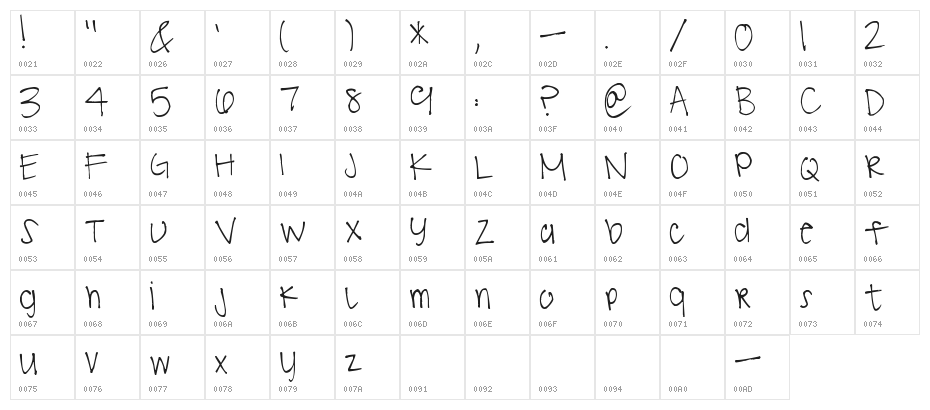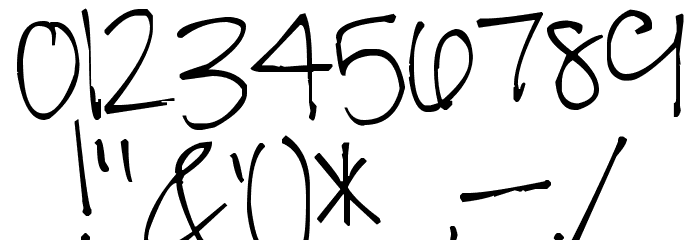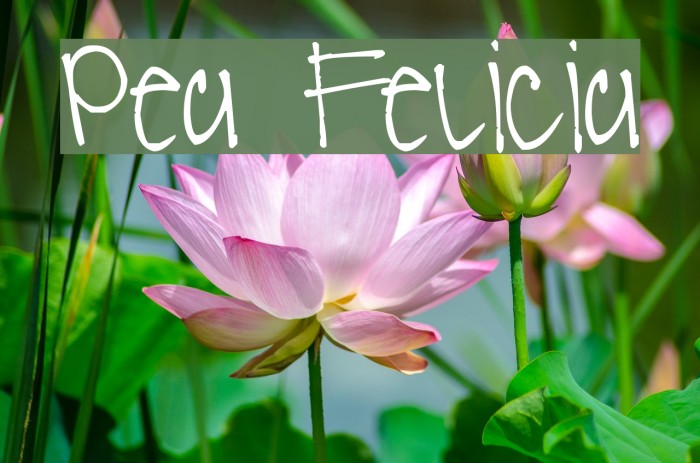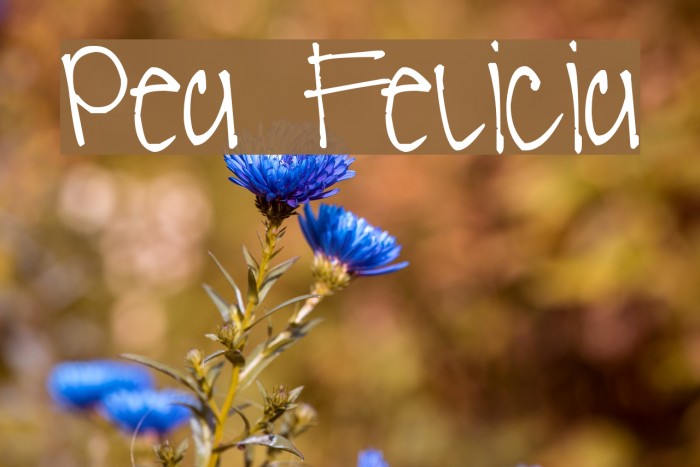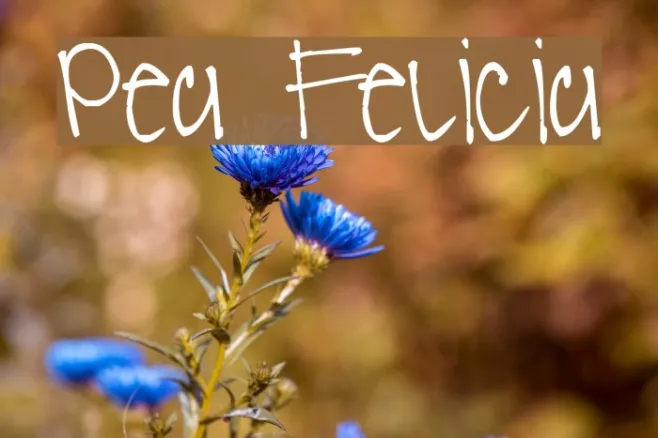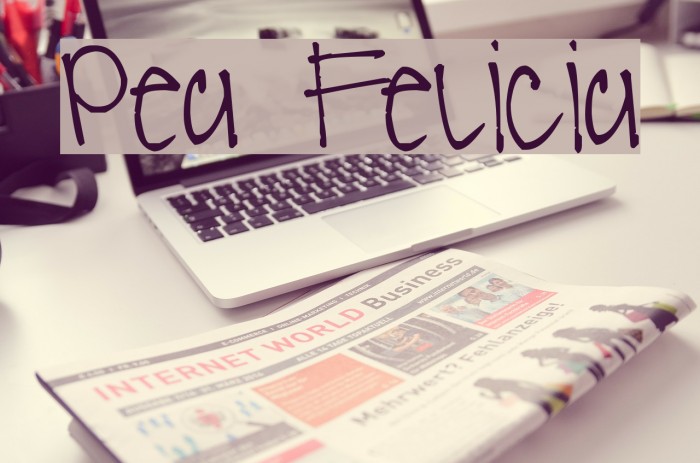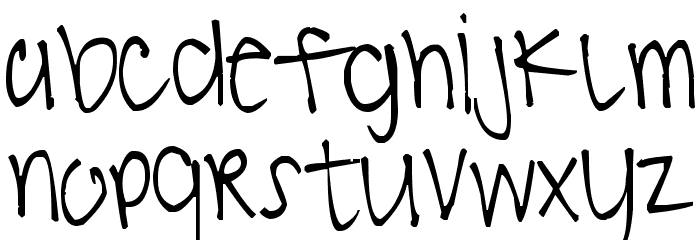
Pea Felicia Font
Pea Felicia Description
This font exudes a playful and casual handwritten style, characterized by its irregular strokes and informal appearance. The letters are slightly slanted, giving a dynamic and lively feel. The uppercase and lowercase letters maintain a consistent flow, with rounded edges and a friendly demeanor. The numerals and special characters follow the same whimsical style, making them suitable for creative and informal contexts. The overall appearance is approachable and personal, ideal for projects that require a touch of personality and warmth.
| Overall Style | Casual, Playful |
| Use Case | Headlines, Informal text, Creative projects |
| Proposed Projects | Ideal for personal invitations, greeting cards, children's books, and casual branding projects. |